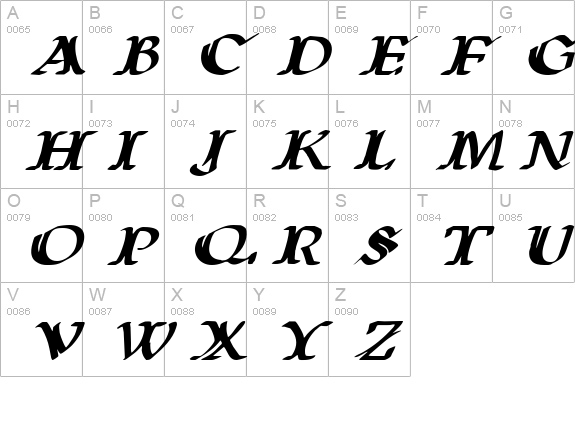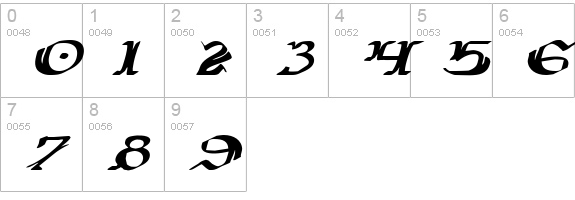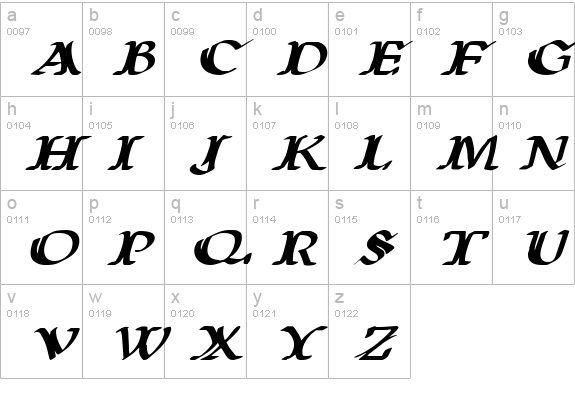
Wars of Asgard Expanded Italic is a distinctive, extended-width, italic variant in the Wars typeface family \xE2\x80\x94 well suited to design and typography projects.
Wars of Asgard Expanded Italic is a stunning and bold font that commands attention with its sharp and angular design. This font exudes power and strength, making it the perfect choice for projects that require a striking and impactful appearance. The italicized style adds a touch of elegance and sophistication to any text, making it versatile for various design applications. What sets Wars of Asgard Expanded Italic apart is its unique and eye-catching aesthetic that is sure to make a statement. Whether used for headlines, titles, or branding, this font will elevate your designs to the next level. Best of all, Wars of Asgard Expanded Italic is available for free download at FontsMarket.com, allowing you to access this powerful font without any cost. Don't miss out on the opportunity to enhance your projects with this exceptional typeface today!